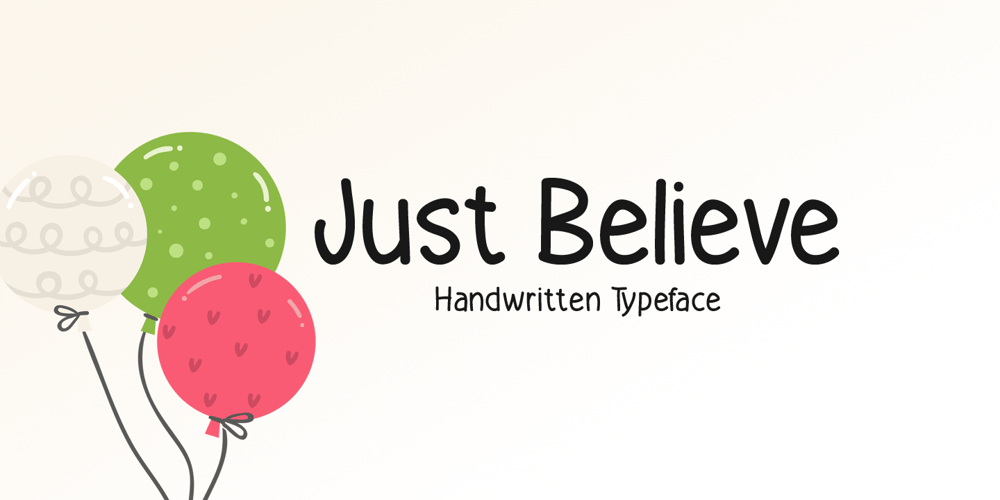
Just Believe Font Family was designed by Md Shohail Bhuian and published by Seemly Fonts. Just Believe contains 1 styles and family package options. Just Believe is a simple and organic handwritten font. Natural and a bit quirky, this font will brighten up each of your designs. Add it confidently to your projects, and you will love the results.